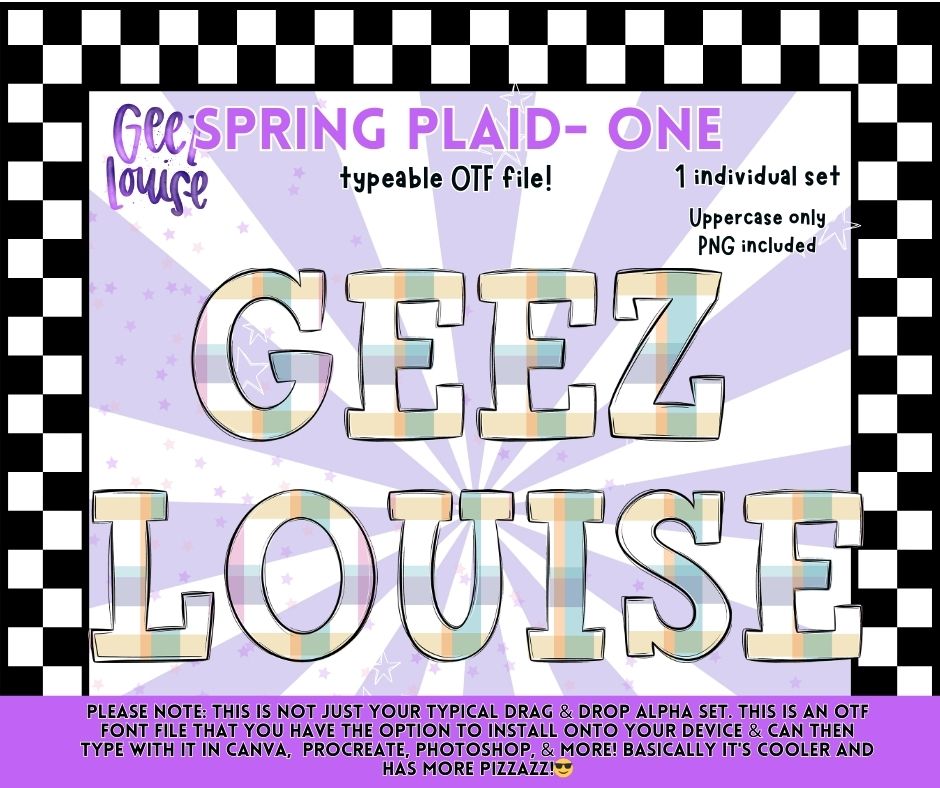
Spring Plaid One OTF Font | Uppercase Typeface + PNG | Soft Plaid Alphabet
Meet Spring Plaid One — a soft plaid alphabet with gentle spring tones and a clean, classic look 🌷
Perfect for spring designs, Easter projects, kids apparel, boutique graphics, and cozy seasonal creations with a timeless feel.
• Uppercase letters only
✔️ Soft plaids with a polished, professional finish